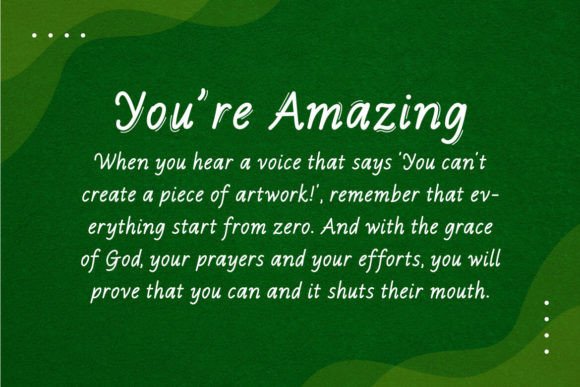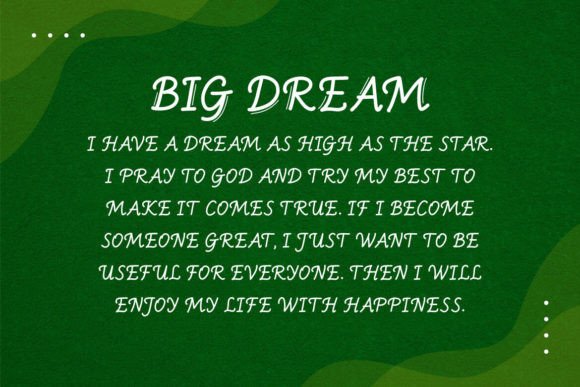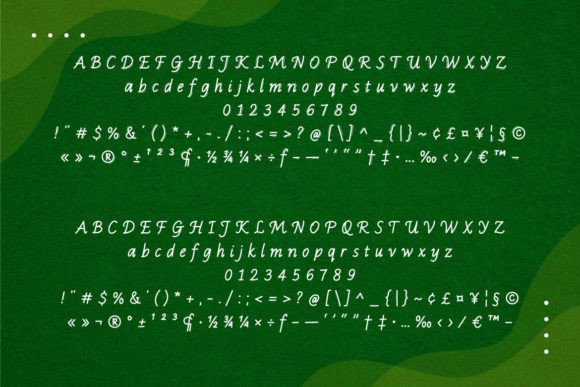
Unlock Your Creativity with Having Fun Font
Remember the moment when you finally nailed that perfect design? The one that made you feel like you’re on top of the world? It’s moments like those that remind us why we love being designers. And, more often than not, the right font can make all the difference. That’s where Having Fun Font comes in – a sweet and friendly handwritten font that’s sure to put a smile on your face.
This charming font is designed to bring a touch of personality to your designs, making it perfect for a wide range of projects. Whether you’re working on a logo, a social media graphic, or a promotional material, Having Fun Font is sure to add a unique twist. And, with its natural and unique style, the possibilities are endless – the only limit is your imagination!
Having Fun Font Key Features
- Font Family: Having Fun Font is a unique, hand-drawn font family designed to evoke a playful and carefree atmosphere.
- Characteristics: Unique, hand-drawn design elements, such as whimsical lines and playful flourishes, add a touch of personality to any design.
Having Fun Font Review
When I first came across “Having Fun Font”, I was immediately drawn to its playful and whimsical vibe. ✨ The font’s use of rounded edges and bubbly details gives it a carefree and childlike feel that’s hard to resist. I love how it’s perfect for creating a lighthearted and fun atmosphere in any design project.
One of the things that works well about this font is its versatility. ✨ It’s suitable for a wide range of applications, from logos and branding to social media graphics and web design. I’ve also found it to be a great choice for creating eye-catching headlines and titles that really pop.
- ⚠️ The font may not be suitable for formal or professional designs, as its playful nature may come across as immature or unprofessional.
- ⚠️ Some characters in the font may not be as detailed or intricate as you might expect, which can be a drawback for designers who value high-level detail in their fonts.
Overall, I think “Having Fun Font” is a great choice for designers who want to add a touch of whimsy and fun to their projects. While it may have some limitations, its playful and versatile nature makes it a great addition to any design library.
Having Fun Font is perfect for creating playful and eye-catching designs for social media, advertising, and children’s content. It’s also great for adding a touch of whimsy to presentations, reports, and other documents.
Experiment with different font sizes, colors, and combinations to create unique and visually appealing designs. You can also pair Having Fun Font with other playful fonts or graphics to add an extra layer of fun and creativity.